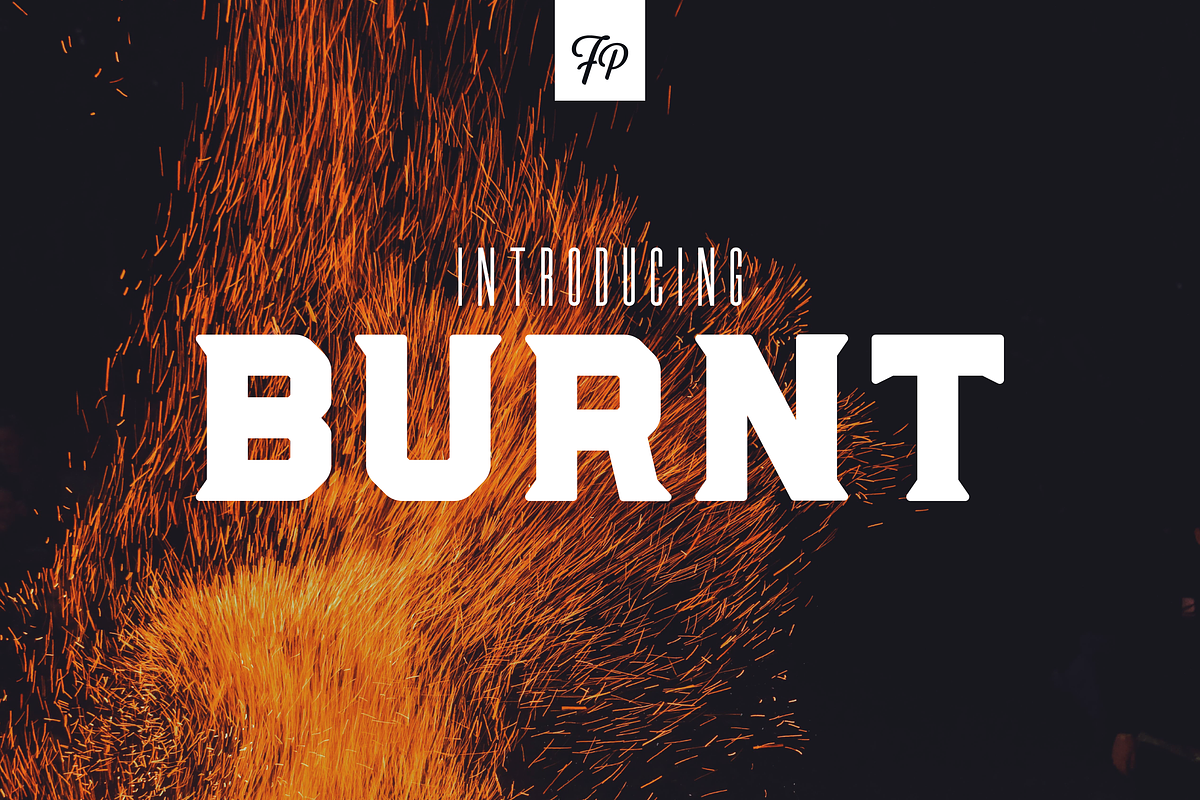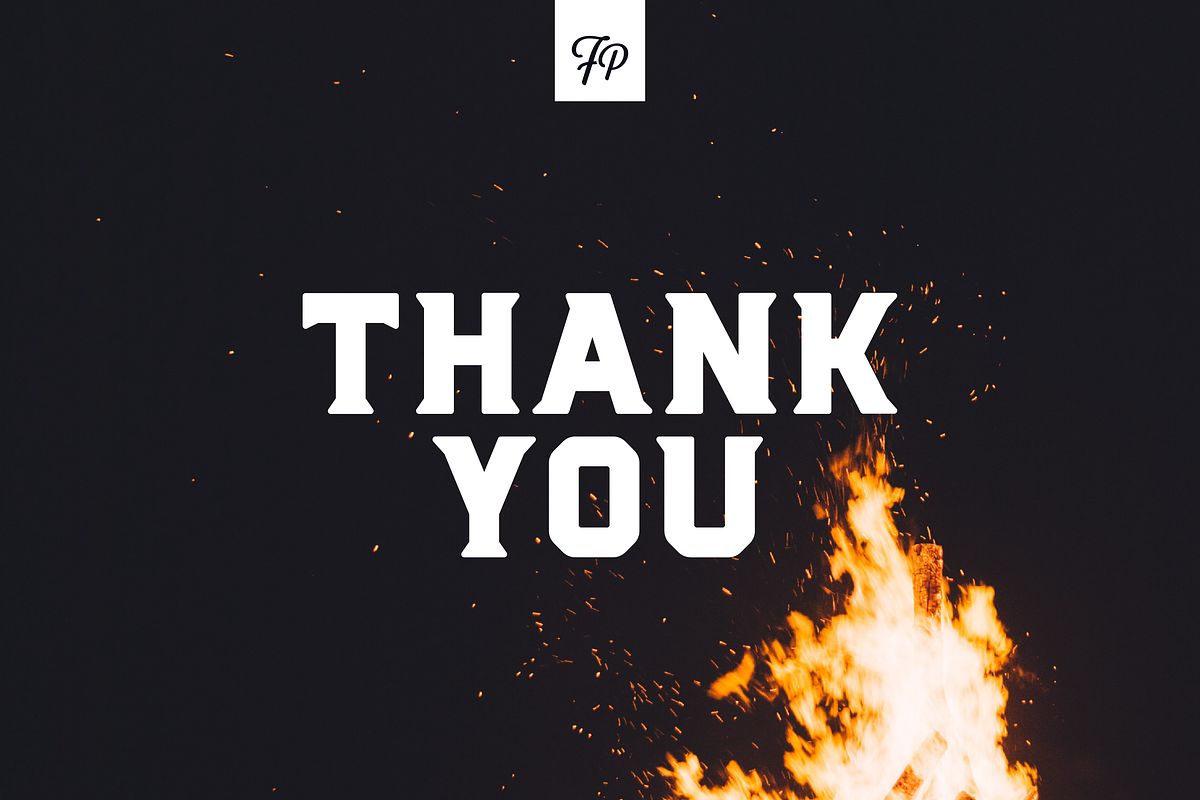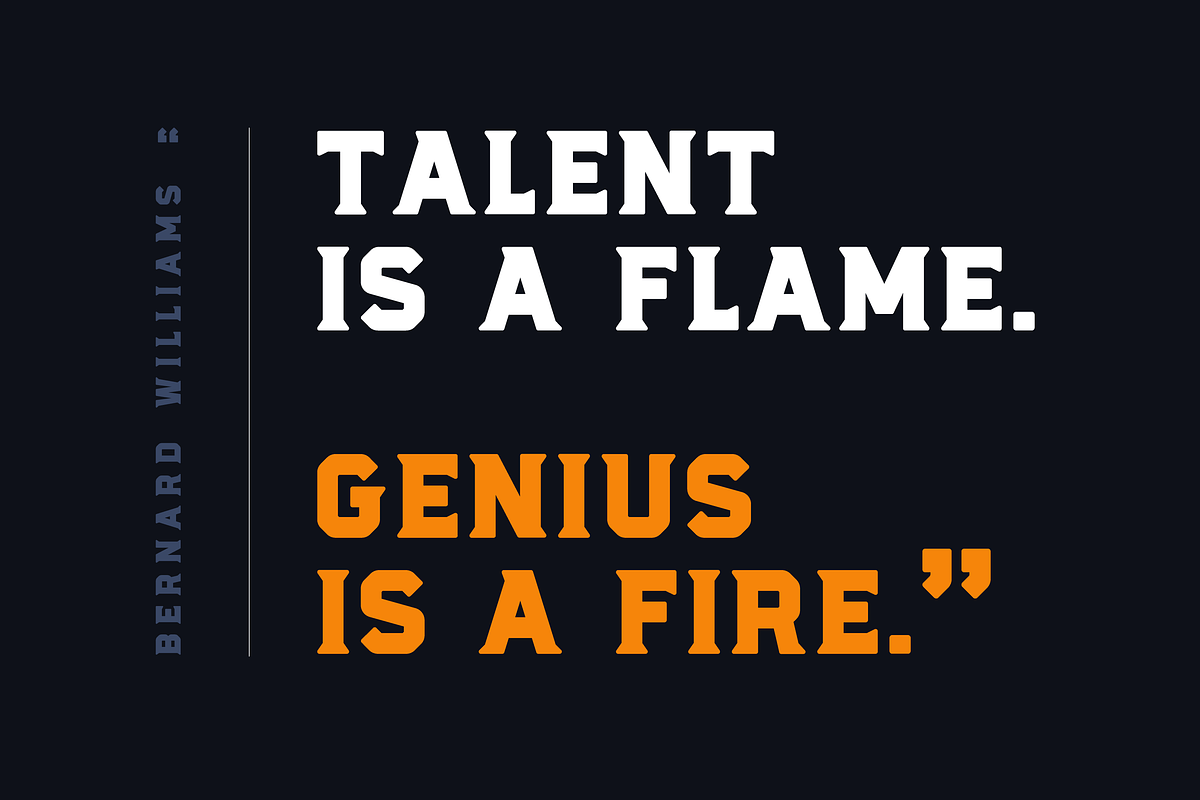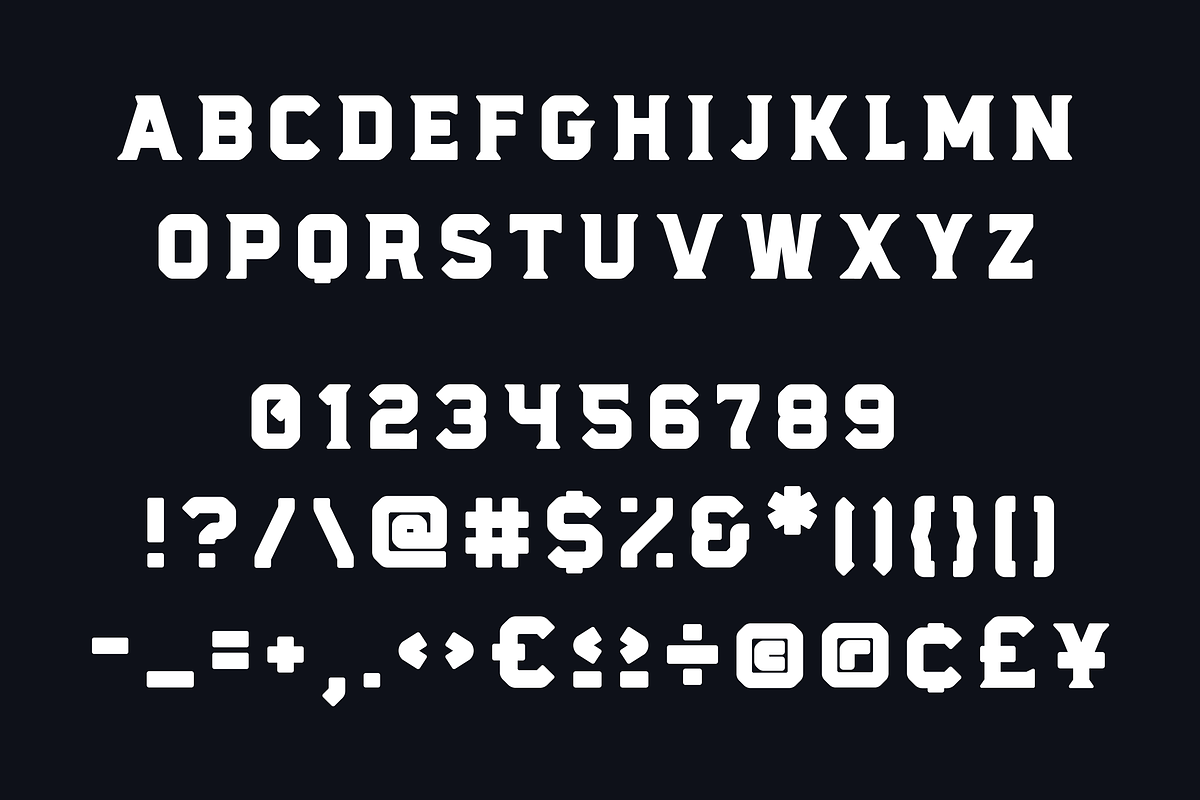
Burnt - Serif Display Font
Introducing Burnt, a new serif display font from Fresh Pressed Fonts!
Burnt is a bold, strong, and unique display font. This will be great for any design that requires an impact and a strong statement. The bold weight as well as the serifs help increase legibility at a small size as well. Burnt comes in uppercase as well as 80+ additional glyphs and symbols.
- Burnt comes in uppercase as well as 80+ additional glyphs and symbols.